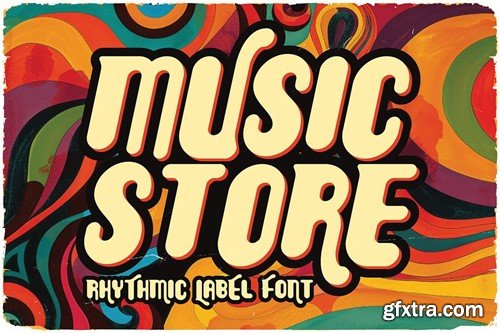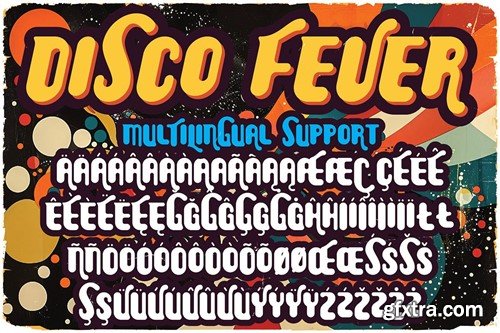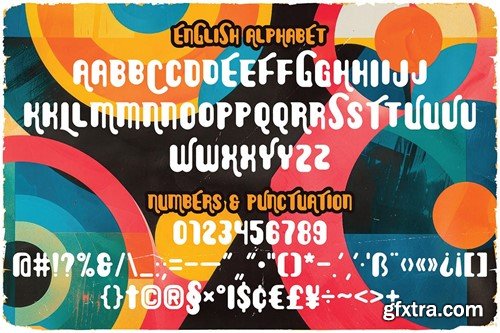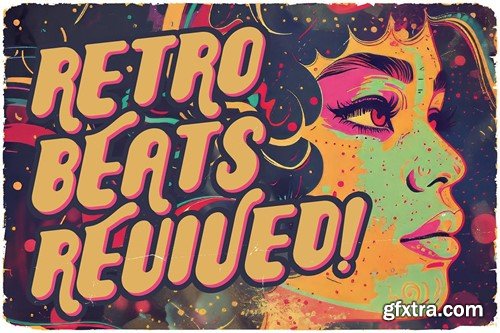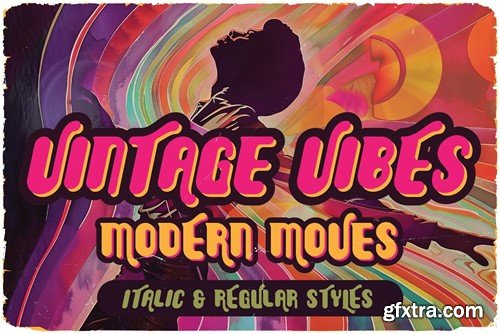
Music Store Retro Rounded Font
Unique, playful, rounded, retro, bold & retro sans serif font. Comes with multilingual support - great for your new logo or branding project. For any help regarding this file, please feel free to contact me through my profile page!